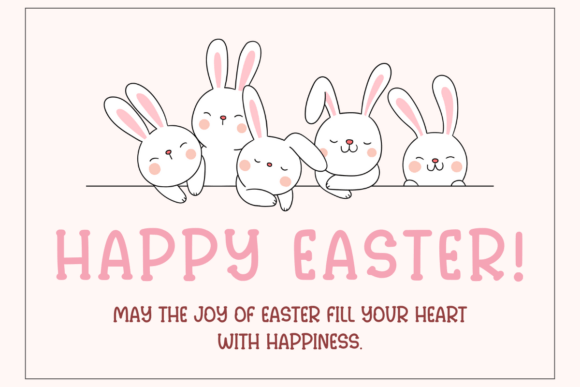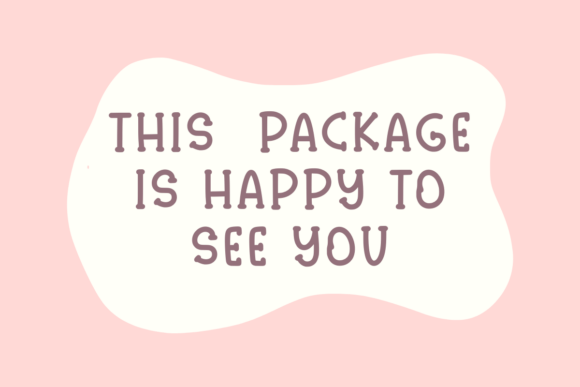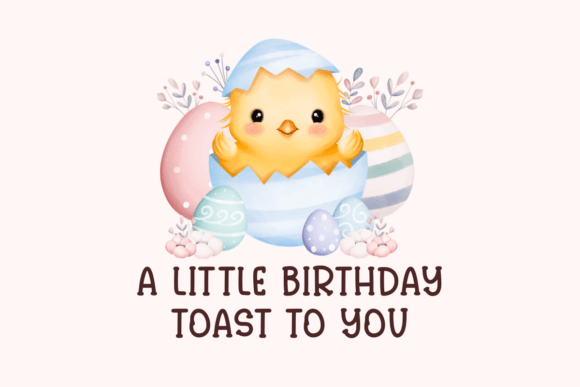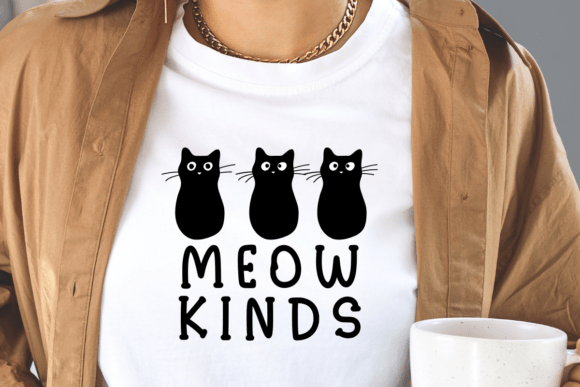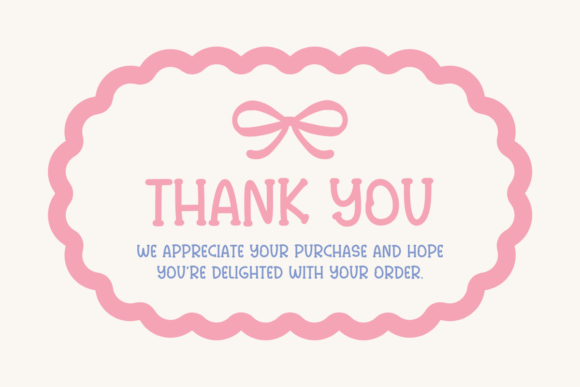
Discover the Whimsy of Bunny Stories Font
Have you ever been working on a design project and suddenly, the perfect font pops into your mind? That’s exactly what happened to me when I stumbled upon the enchanting Bunny Stories Font. It was as if the charm of a handwritten note from a loved one had been captured in a digital format. I couldn’t wait to incorporate it into my next project.
The Bunny Stories Font is a delightful, minimalist, thin handwritten font that brings a touch of simplicity and elegance to any design. Its natural handwriting feel makes it perfect for planners, journals, stickers, labels, and inspiring quotes. What I love most about this font is its versatility – it can add a playful twist to your designs or a touch of sophistication, depending on your creative vision.
Bunny Stories Font Key Features
- Unique Characteristics: Whimsical, hand-drawn design with a playful feel; Perfect for children’s books, nursery rhymes, and educational materials
Bunny Stories Font Review
As a designer, I’ve had the chance to work with a wide range of fonts, and the Bunny Stories Font is one of them. Here’s my honest take on it.
- The Bunny Stories Font has a playful, whimsical feel that’s perfect for children’s books, greeting cards, and other lighthearted designs.
- The font’s irregular shapes and soft lines give it a hand-drawn, organic feel that’s hard to replicate with digital tools.
- The font includes a wide range of characters, including punctuation and special symbols, making it a great choice for designers who need a complete font solution.
- The font’s irregular shapes can make it difficult to read at smaller sizes, especially for designers who need to use it in body text.
- The font’s playful feel may not be suitable for all types of designs, such as corporate or formal documents.
Overall, I think the Bunny Stories Font is a great choice for designers who need a playful, whimsical font for specific projects. However, it may not be the best choice for designers who need a font that’s easy to read at small sizes or for a wide range of designs.
To get the most out of the Bunny Stories Font, try combining it with other playful and whimsical elements, such as illustrations or graphics. This font is perfect for creating a child-friendly or Easter-themed design.
The Bunny Stories Font is ideal for:
- Children’s book covers or illustrations
- Easter-themed invitations or decorations
- Playful marketing materials or social media graphics